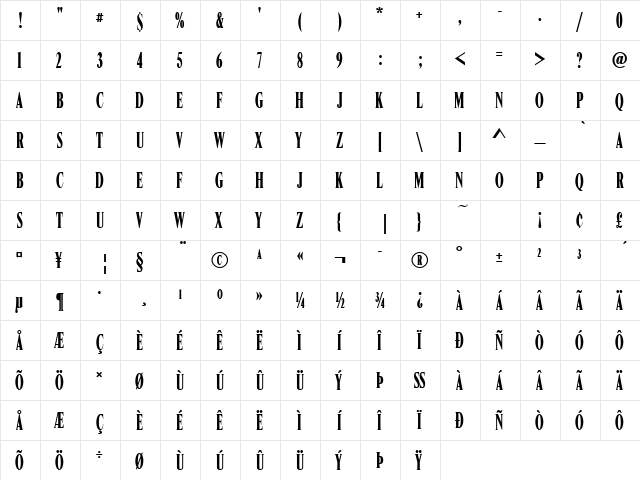
Nimbus Roman Becker ModComD Regular
Design Context for Nimbus Roman Becker ModComD Typeface
Nimbus Roman Becker ModComD offers clean, dependable letterforms without strong stylistic allegiance, making it a practical choice for designers who need flexibility.